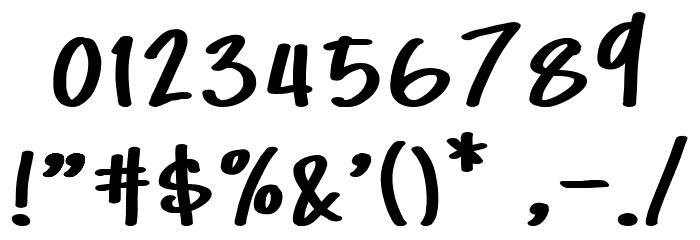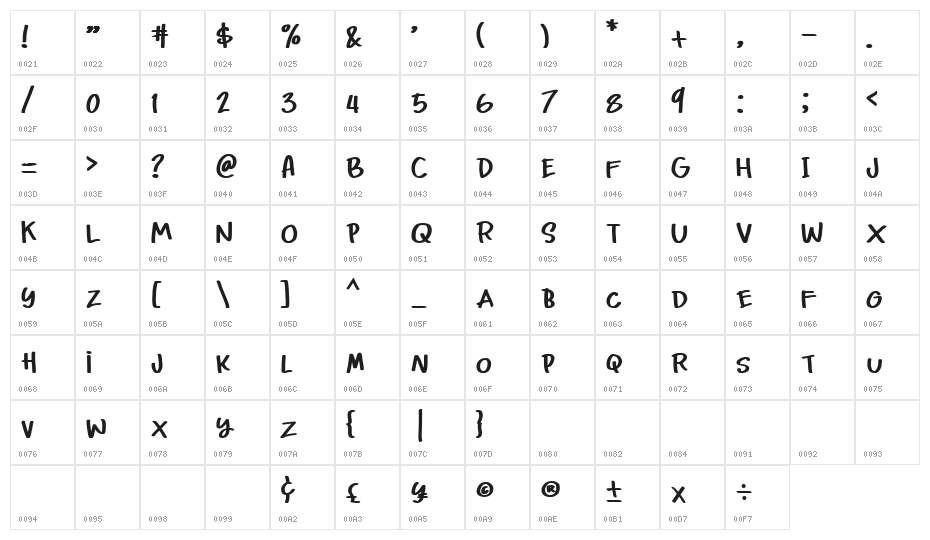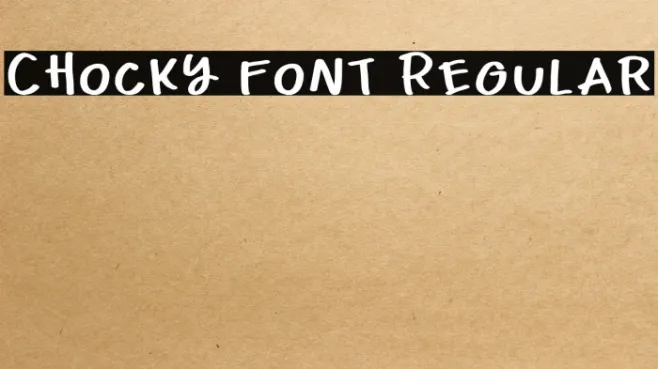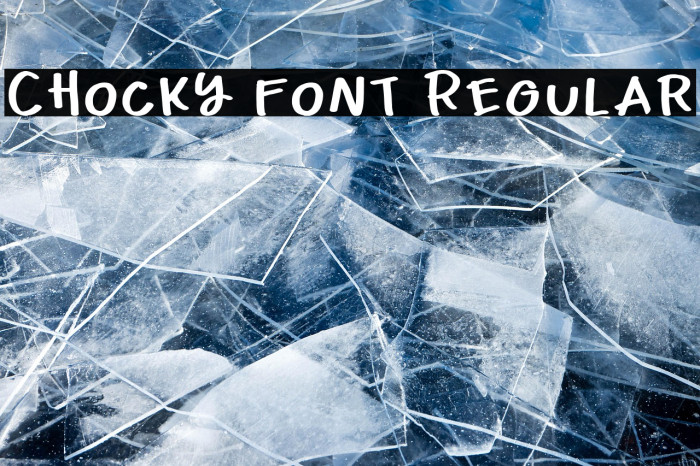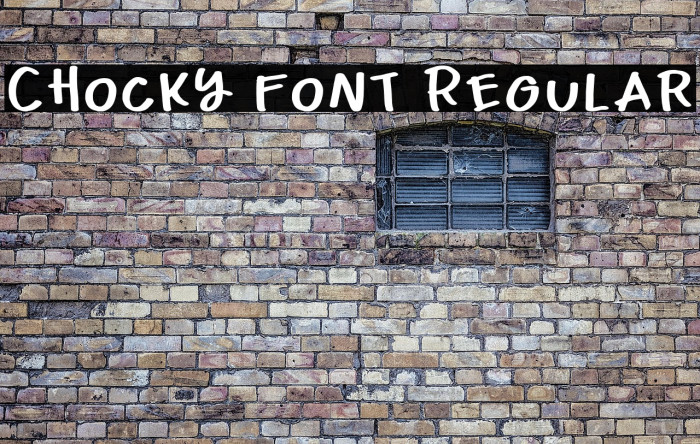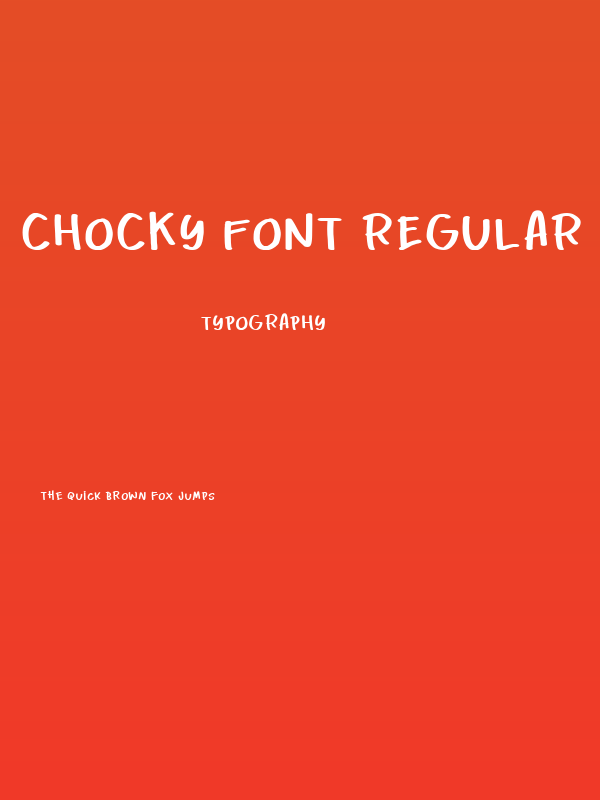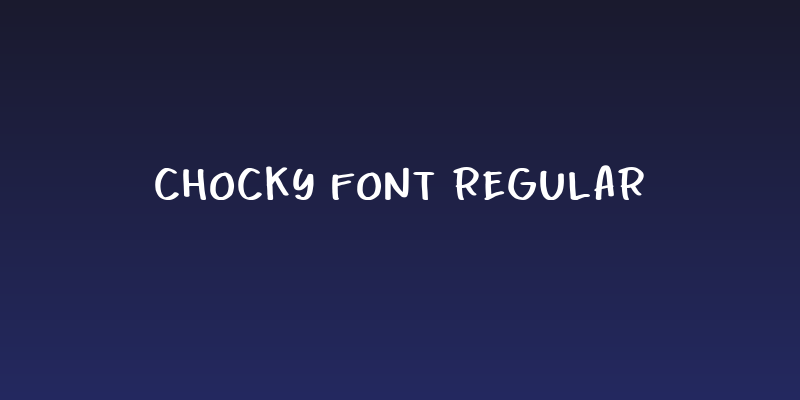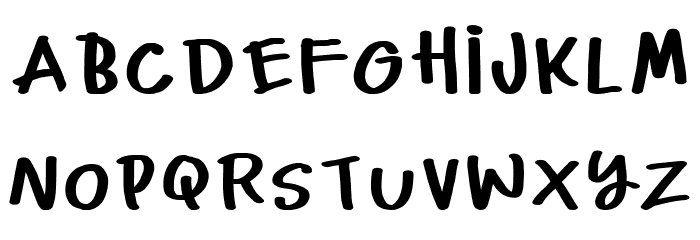
Chocky Font Regular Font
Chocky Font Regular Description
This playful and energetic font features bold, rounded strokes with a handwritten style that exudes a sense of fun and creativity. The characters are slightly irregular, giving them a natural and organic feel, reminiscent of casual handwriting. The uppercase and lowercase letters maintain a consistent style, with a slight tilt that adds to the dynamic appearance. Numbers and special characters are designed with the same playful touch, making them suitable for a variety of informal and creative applications. The overall look is approachable and friendly, perfect for projects that aim to convey warmth and personality.
| Proposed Projects | Ideal for children's books, greeting cards, playful branding, and casual social media graphics. |